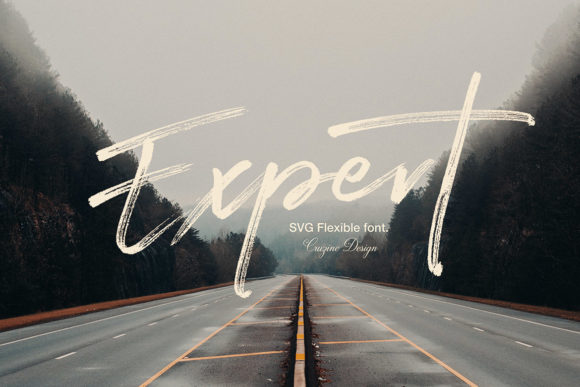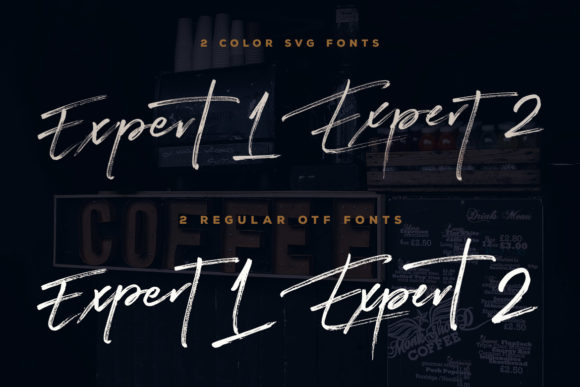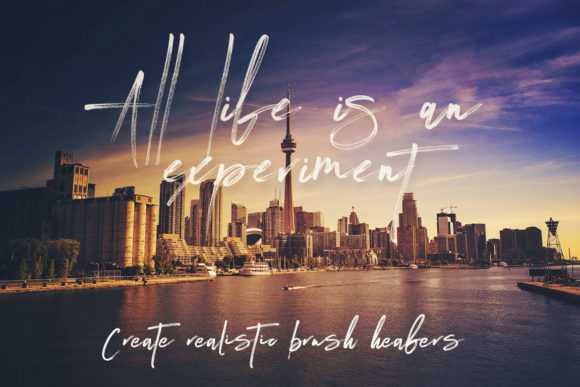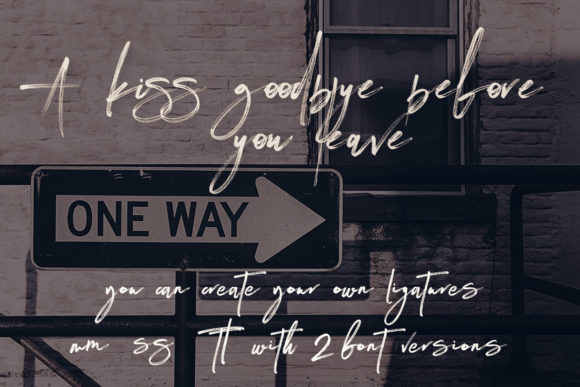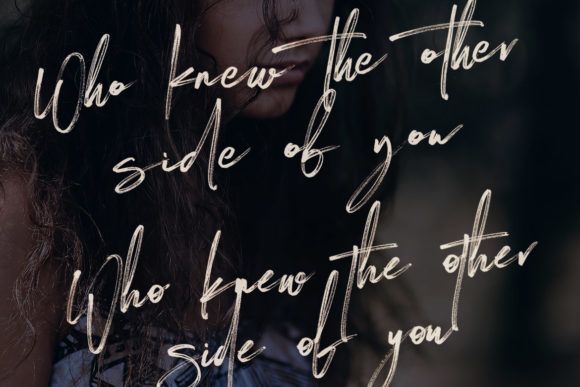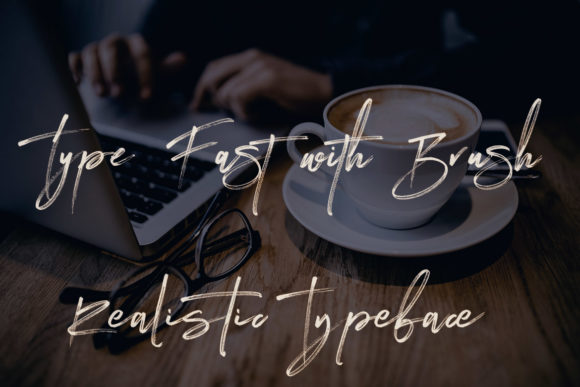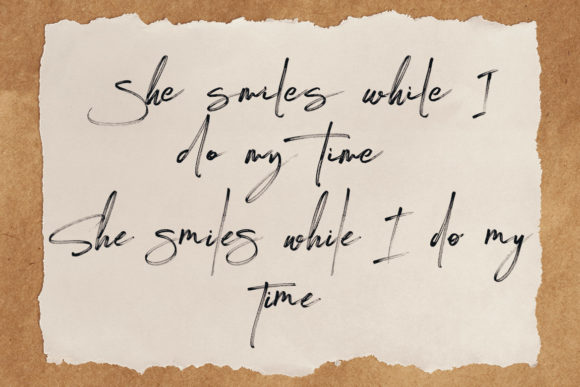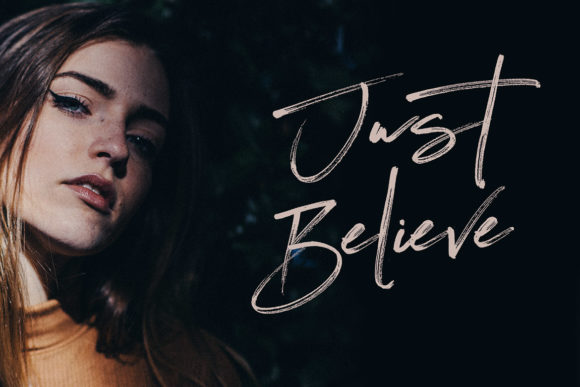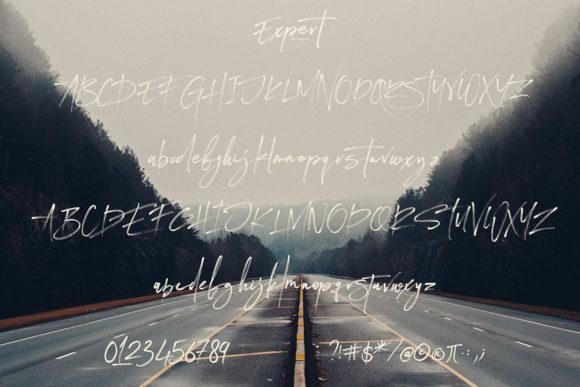
HomeScript FontsExpert Font Script Fonts Expert Font FacebookXPinterestWhatsApp Expert Font Poster 2 Expert Font Poster 3 Expert Font Poster 4 Expert Font Poster 5 Expert Font Poster 6 Expert Font Poster 7 Expert Font Poster 8 Expert Font Poster 9 Expert Font Poster 10 About Expert Font Expert is a fun and bold handwritten font with a cool vibe. Get inspired by its unique charm! DOWNLOAD NOW People also explored Riqage – Textured Brush Font Keep Doing Good Things Font Romantic Dinner Font Familia Script Font Hastline Font Spoter Ngopen Font Visco Girl Font Rasdolly Font Frames Creator 1.0 Font 259 0 TagsExpert Font Previous articleBroken Space FontNext articleLittle Angel Font LEAVE A REPLY Cancel reply Comment: Please enter your comment! Name:* Please enter your name here Email:* You have entered an incorrect email address! Please enter your email address here Website: Save my name, email, and website in this browser for the next time I comment. Personal Use Free Starting Live Personal Use Free Read more about this font Barokah Personal Use Free Read more about this font Charletto Personal Use Free Read more about this font Carnivals Personal Use Free Read more about this font BLOG The 10 Best Handwriting Fonts to Add Personality to Your Designs 10 of the Best Handwriting Fonts for Adding Personality to Your Designs There will undoubtedly be no other better choice than handwriting fonts to give... Best Fonts for T-Shirt Design – Top 2025 Picks Free vs Paid Fonts: Why Investing in Premium Fonts Is Worth It 5 Fonts That Will Dominate Design Trends in 2026